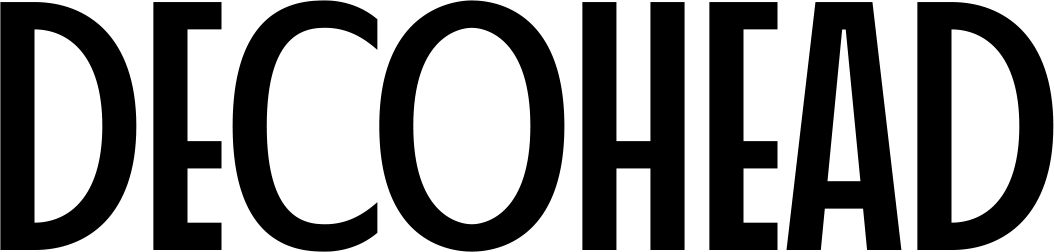
Decohead Font
Using retro fonts such as Decohead can make your content appealing to youngsters and engage them with your content. This font does not support lowercase letters and punctuation. Decohead can convey a sense of intimacy and excitement to the audience and is great for designing content such as video game posters and logos.
Presenting DECOHEAD, an elegant and warm Art Deco inspired typeface. With its unique and delicate touch this font can add a sophisticated twist to any design.
Decohead has a neat appearance that feels modern but at the same time it`s decorative accents it sets itself apart, maintaining a subtle yet exquisite overall look, without being too shabby. Decohead has three weights, uppercase and lower uppercase characters, a number of 63 glyphs per each font and standard Latin script support with numerals. You can use Decohead for almost any design project that requires a glamorous, decorative whisper. From posters, headers, feminine logos to wedding invitations but it can also be used for small articles and occasional texts.– website:www.headfonts.com